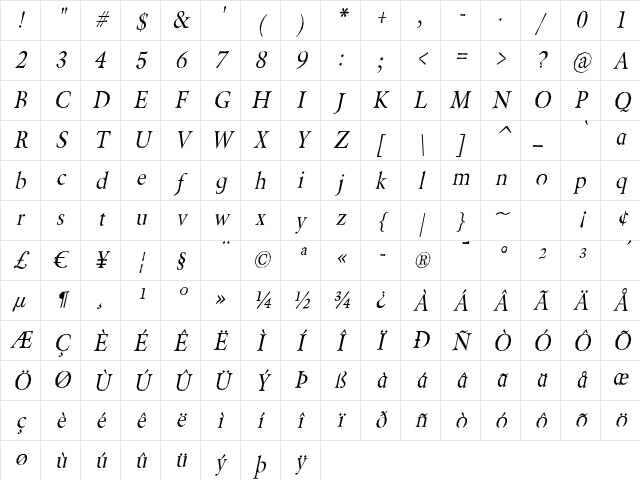
Berylium Italic Free Font
Berylium Italic
Design Context for Berylium
Berylium is a composed and adaptable typeface that performs quietly and consistently across a wide range of design contexts. The slanted form adds forward momentum and visual energy.
Pro Tip: Use Berylium for emphasis, pull quotes, and subheadings where its slanted energy can add rhythm to the layout.